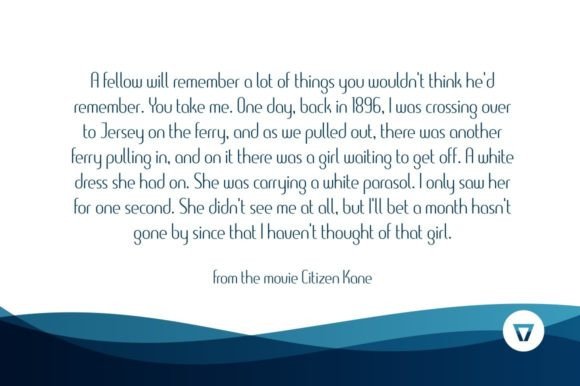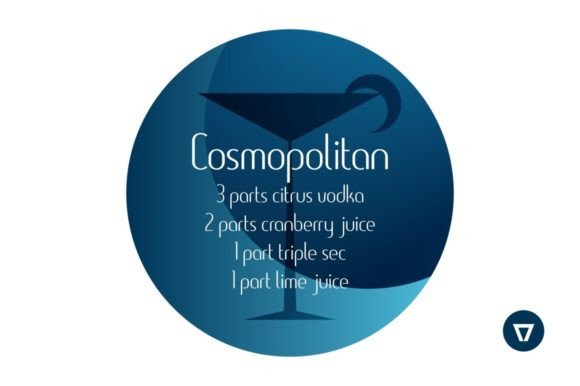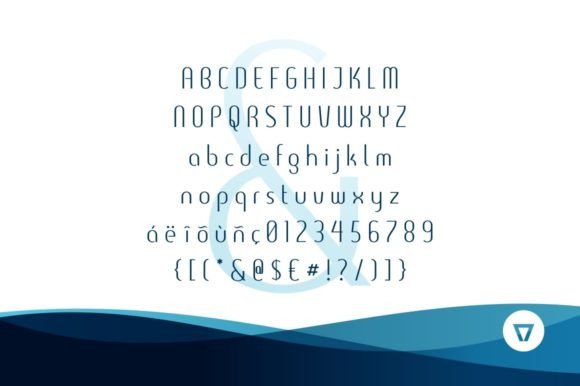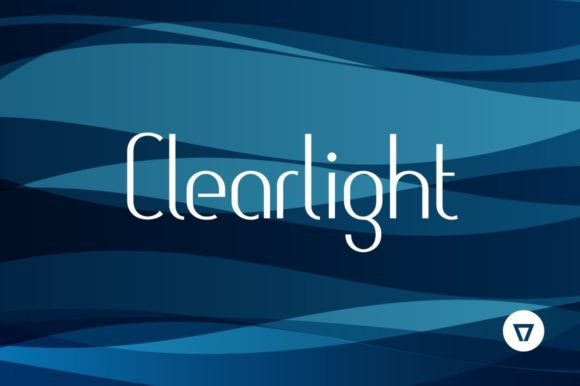
Introducing Clearlight Font: The Perfect Blend of Technology and Elegance
In the world of typography, finding the right font can make all the difference in creating a lasting impression. For designers and crafters looking for a crisp and simple sans serif display typeface, Clearlight Font is an excellent choice. With its technological edge and fancy details, Clearlight exudes a friendly and elegant look, making it perfect for branding, logos, and products that require a minimal identity with personality.
What is Clearlight Font?
Clearlight Font is a modern sans serif display typeface designed to make a statement. Its clean lines and simple shapes give it a fresh and contemporary look, while its technological undertones add a touch of sophistication. The font’s elegant features make it suitable for a wide range of applications, from luxury brands to innovative products.
Key Features of Clearlight Font
- Crisp and Simple Design: Clearlight’s sans serif design ensures that your message is conveyed clearly and concisely, without any distractions.
- Technological Edge: The font’s technological undertones give it a modern and innovative feel, perfect for brands and products that want to appear cutting-edge.
- Fancy Details: Clearlight’s fancy details add a touch of elegance and sophistication, making it suitable for high-end brands and luxury products.
- Minimal Identity: The font’s simple design ensures that it won’t overpower your brand’s message, allowing your identity to shine through.
- Personality: Clearlight’s unique blend of technology and elegance gives it a distinct personality that will set your brand apart from the competition.
Use Cases for Clearlight Font
Clearlight Font is versatile and can be used in a variety of applications, including:
- Branding: Create a lasting impression with Clearlight’s elegant and modern design, perfect for logos, business cards, and letterheads.
- Logos: Make a statement with Clearlight’s bold and sophisticated design, ideal for startups, tech companies, and innovative products.
- Product Design: Add a touch of elegance and sophistication to your product design with Clearlight’s clean and simple typography.
- Advertising: Grab attention with Clearlight’s bold and modern design, perfect for print and digital ads.
Benefits of Using Clearlight Font
By using Clearlight Font, designers and crafters can benefit from:
- Improved Readability: Clearlight’s simple design ensures that your message is conveyed clearly and concisely.
- Increased Versatility: The font’s minimal design makes it suitable for a wide range of applications.
- Enhanced Elegance: Clearlight’s fancy details add a touch of sophistication and elegance to your design.
- Unique Personality: The font’s blend of technology and elegance gives it a distinct personality that will set your brand apart.
| Font Name | Clearlight Font |
| Author | nimatype |
In conclusion, Clearlight Font is an excellent choice for designers and crafters looking for a crisp and simple sans serif display typeface. With its technological edge, fancy details, and elegant look, Clearlight is perfect for branding, logos, and products that require a minimal identity with personality. Its versatility, readability, and unique personality make it an ideal font for a wide range of applications.
Get Ready to Elevate Your Design with Clearlight Font
Whether you’re a designer, crafter, or entrepreneur, Clearlight Font is an excellent addition to your typography arsenal. With its modern design, elegant features, and versatility, Clearlight is sure to elevate your design and help you create a lasting impression.